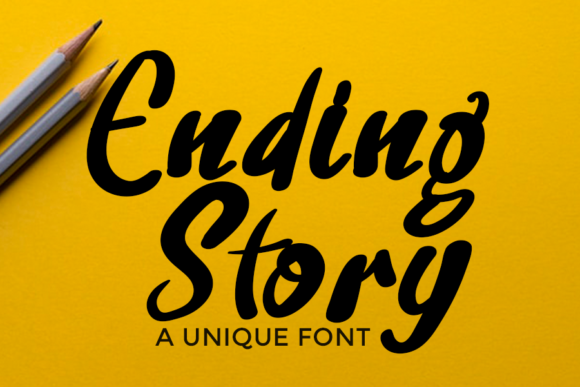
Dive into the realm of elegance and charm with Ending Story Font, a display font that captures the essence of individuality and creativity. This font, crafted by the skilled hands of merge354, transcends the boundaries of ordinary typography, presenting a masterpiece of artistry.
Ending Story's sharp and defined lines evoke a sense of sophistication, while its unique style adds a touch of playfulness and whimsy. Embrace the freedom to express your thoughts and ideas, letting them dance upon the canvas of your designs with Ending Story as your guiding muse.
Imagine your words taking shape in the form of this exquisite font, adorned with the allure of elegance and poise. Whether you're crafting logos, branding materials, or captivating social media posts, Ending Story serves as the perfect companion, transforming your designs into works of art.
Unlock the boundless possibilities of Ending Story and watch your creative visions come to life. It's more than just a font; it's an invitation to embark on a journey of artistic exploration, where imagination knows no limits.